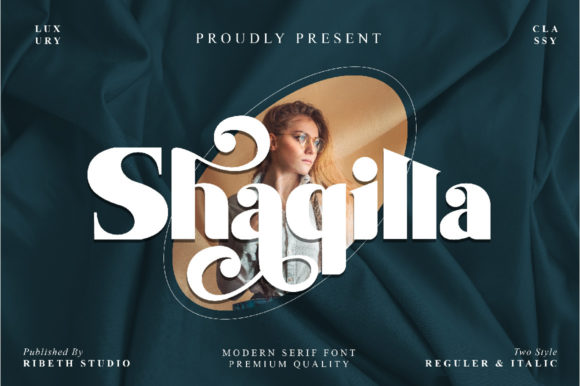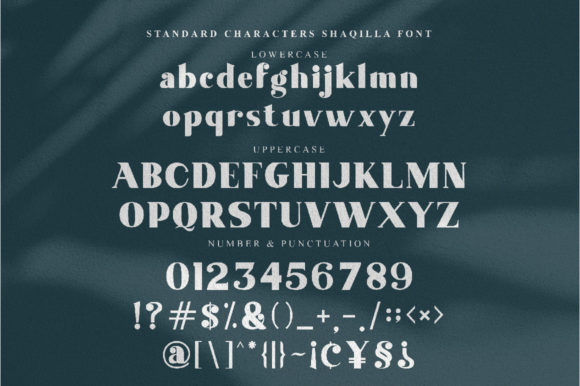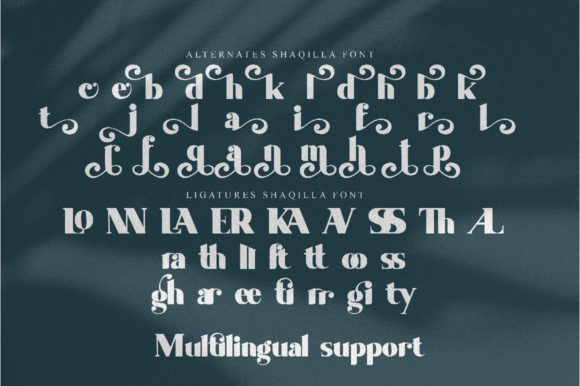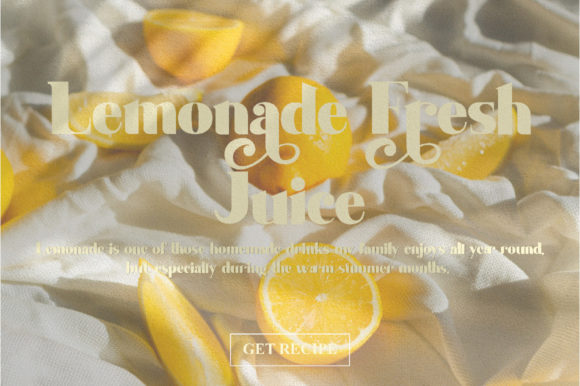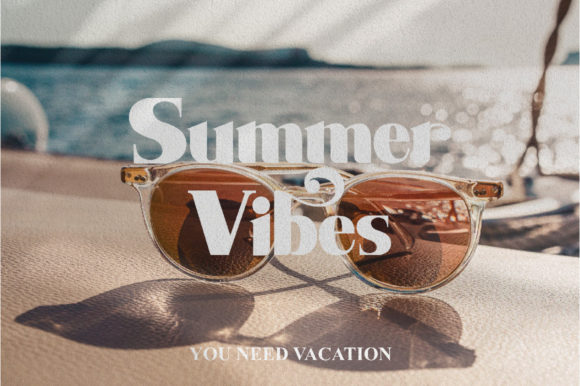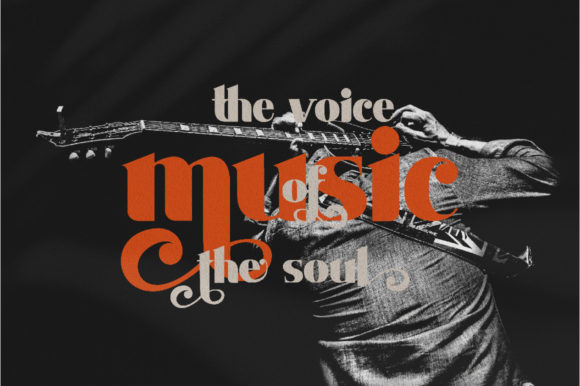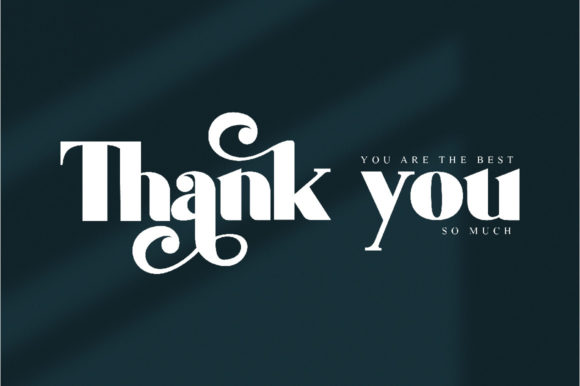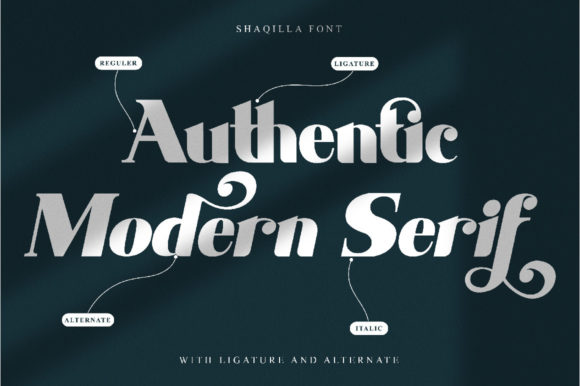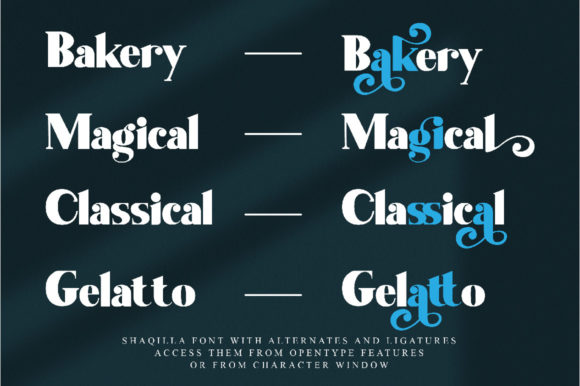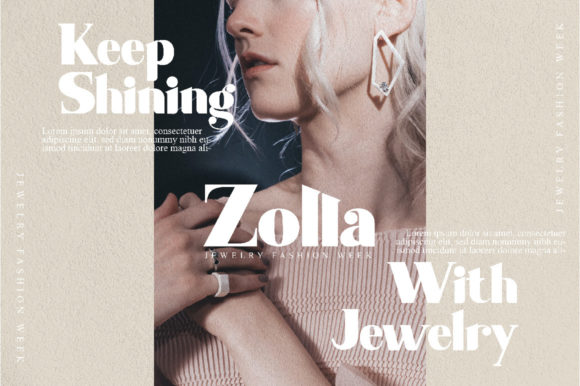
Shaqilla
Shaqilla: A Stylish and Versatile Slab Serif Font
Shaqilla is a distinctive slab serif font that combines style with versatility. This elegant typeface is designed to enhance a wide range of creative projects, making it perfect for both bold and refined designs.
Key Features of Shaqilla
• Stylish Design: Offers an elegant and fashionable look that stands out.
• Slab Serif Structure: Incorporates the characteristic thick, rectangular serifs typical of slab serif fonts.
• Versatile Application: Suitable for a wide range of projects, from branding to holiday cards.
• PUA Encoded: Allows easy access to all glyphs and swashes for enhanced design flexibility.
• Creative Potential: Perfect for bold and creative ideas across various design contexts.
Ideal Uses for Shaqilla
Shaqilla’s unique characteristics make it particularly well-suited for:
• Branding and logo design
• Wedding invitations
• Christmas and holiday cards
• Product packaging
• Inspirational quotes and typography
• Label and poster designs
When incorporating Shaqilla into your designs, consider these tips:
• Use for headlines or short blocks of text to showcase its stylish character
• Experiment with different sizes to highlight the font’s unique details
• Take advantage of the PUA encoding to access special characters and swashes
• Utilize its versatility for both elegant and bold design concepts
Shaqilla is an excellent choice for designers looking to add a stylish and versatile slab serif font to their typographic toolkit. Its ability to enhance various creative projects makes it stand out in the world of typography. Whether you’re working on logo designs for elegant brands, creating layouts for wedding invitations, or developing content that requires a touch of sophistication, Shaqilla offers the perfect blend of style and adaptability.
Furthermore, Shaqilla’s PUA encoding allows designers to easily access all glyphs and swashes, expanding the creative possibilities of this font. From vintage-inspired designs with a modern twist to more playful layouts that need a touch of elegance, this font can elevate your projects. Its stylish nature works particularly well in designs that require a thoughtful and refined mood.
In conclusion, Shaqilla is a font that truly brings style and versatility to your designs. Its ability to work well in both elegant, minimalist projects and more elaborate layouts showcases its flexibility. For those looking to add a touch of sophistication to their work, Shaqilla can even enhance seasonal creations with its unique, stylish character. It’s the perfect font for your most creative and bold ideas, allowing you to create designs that are both refined and impactful.